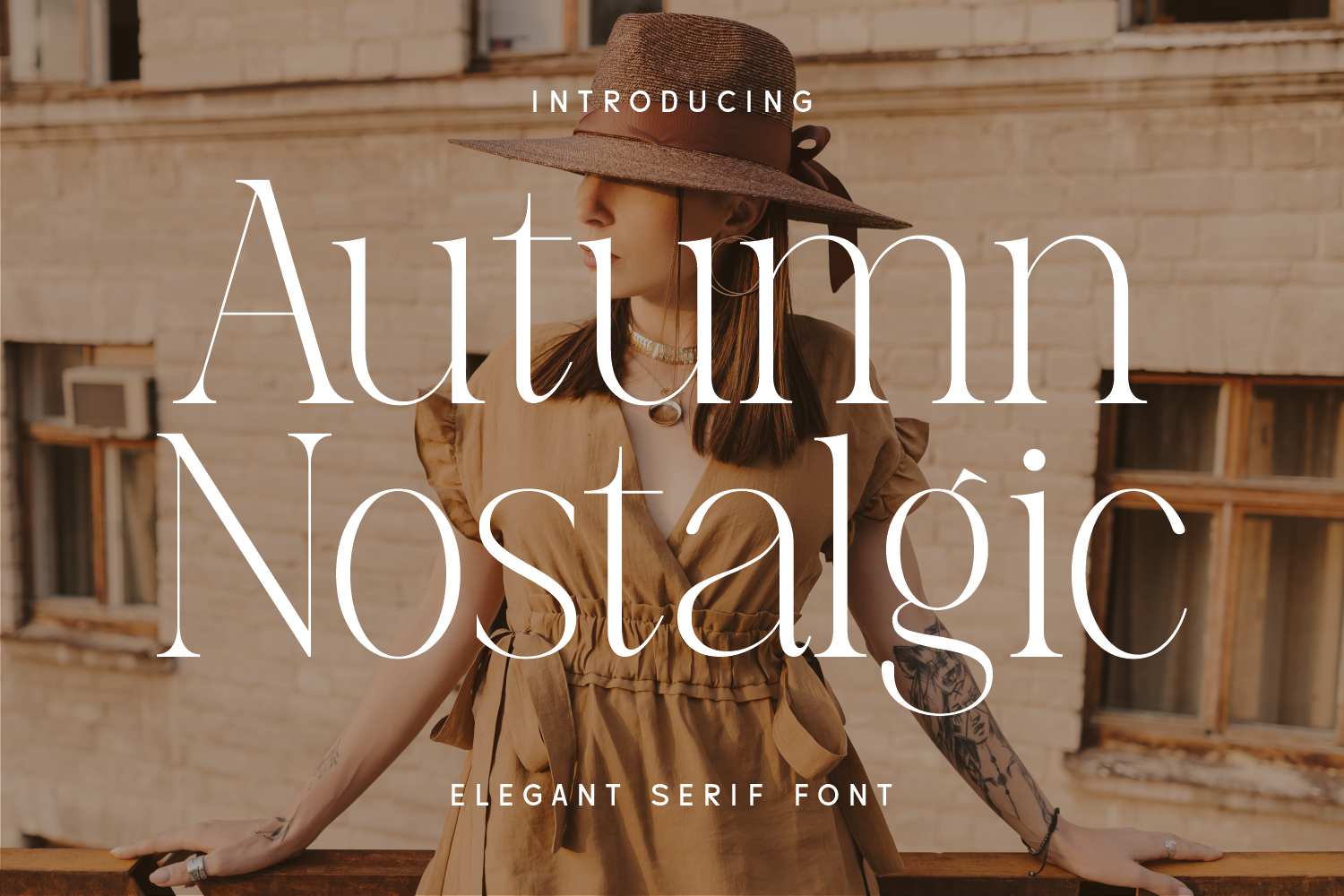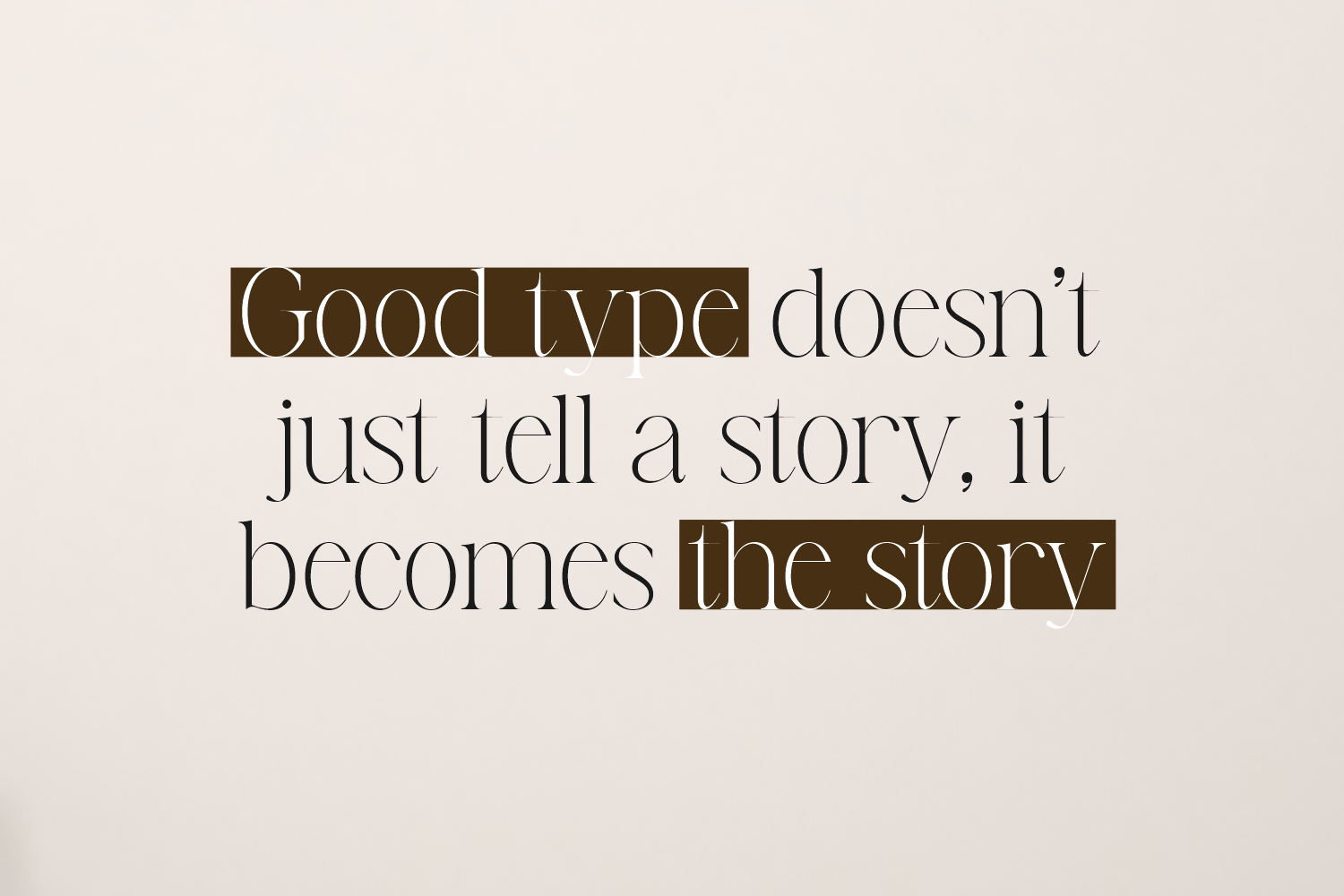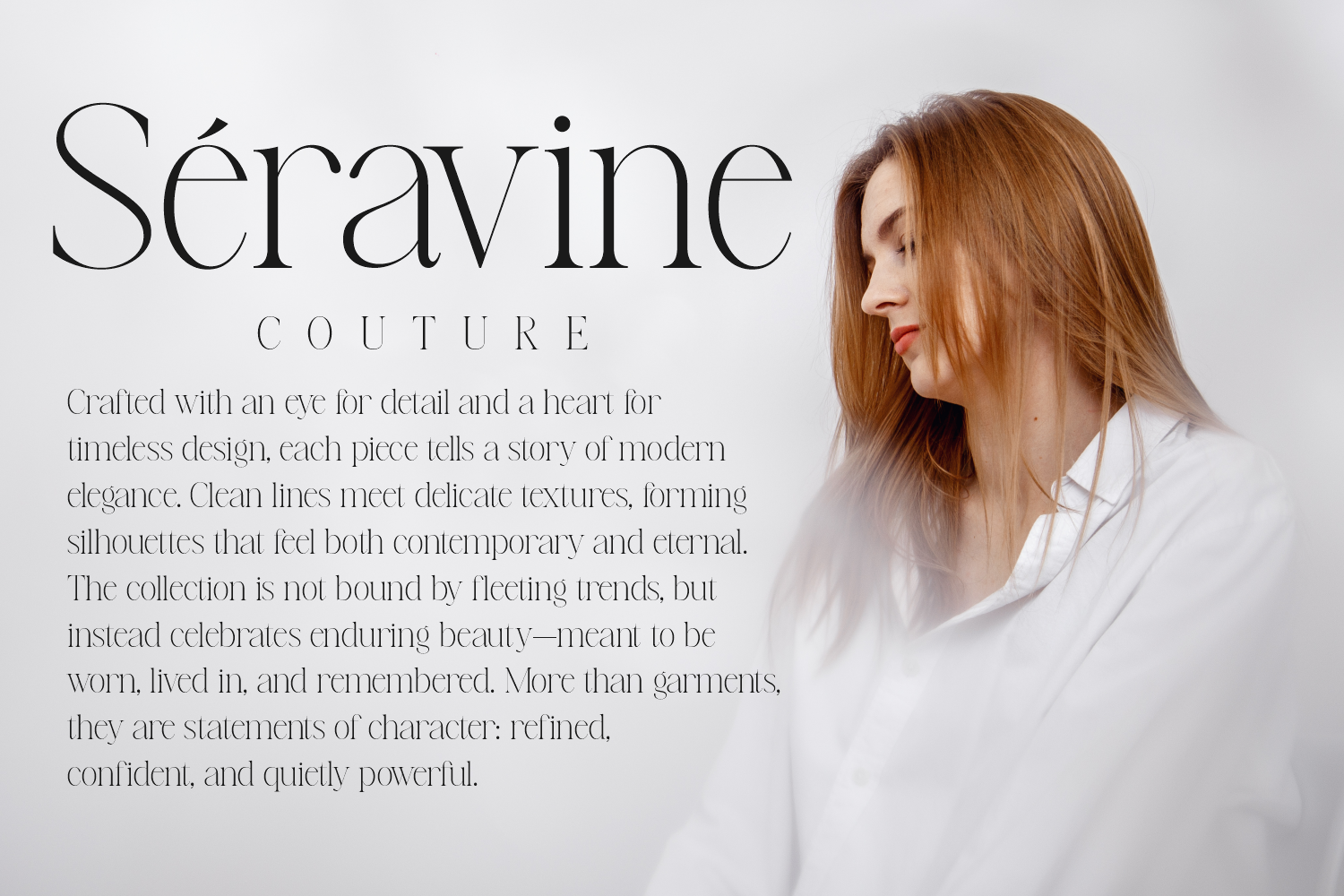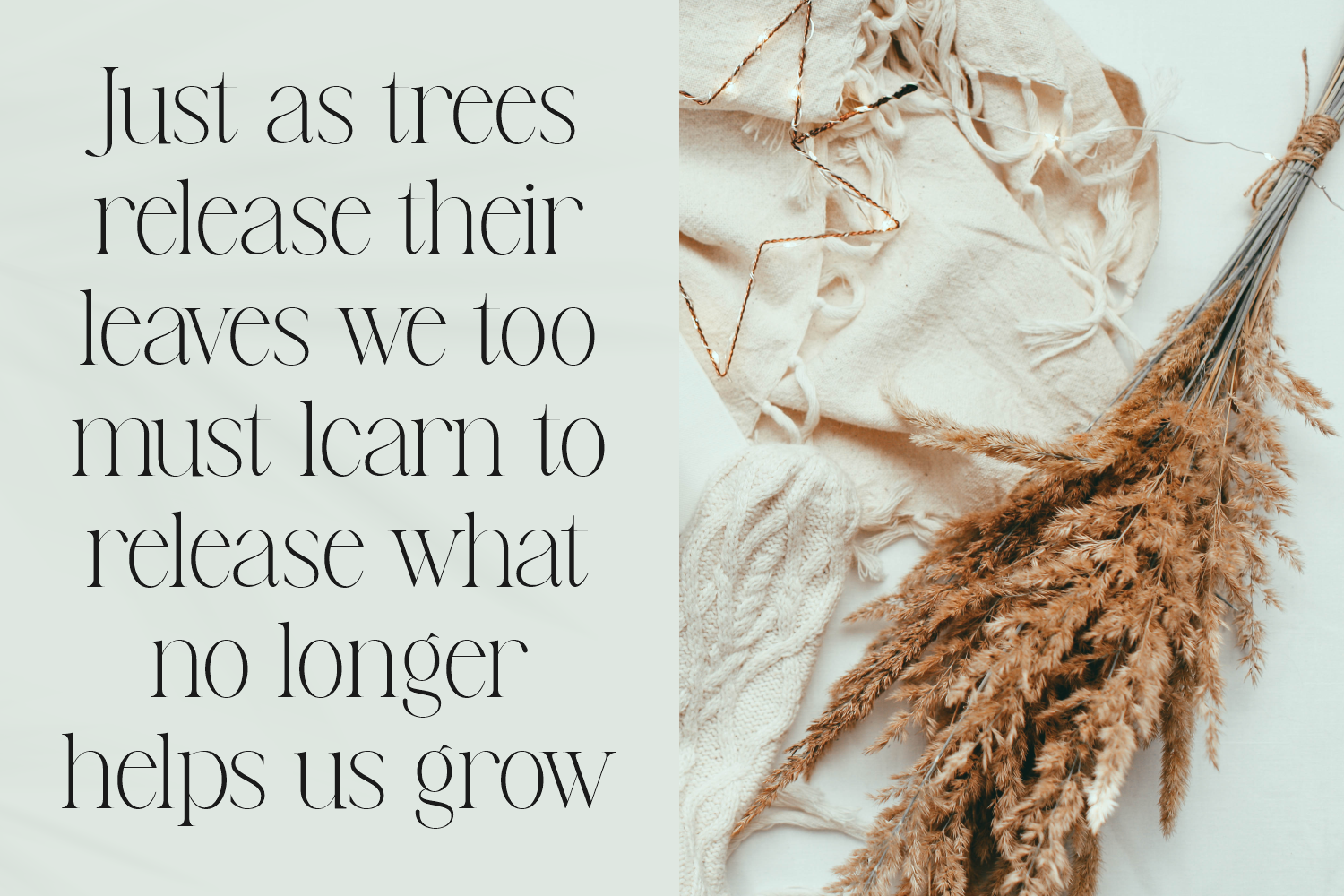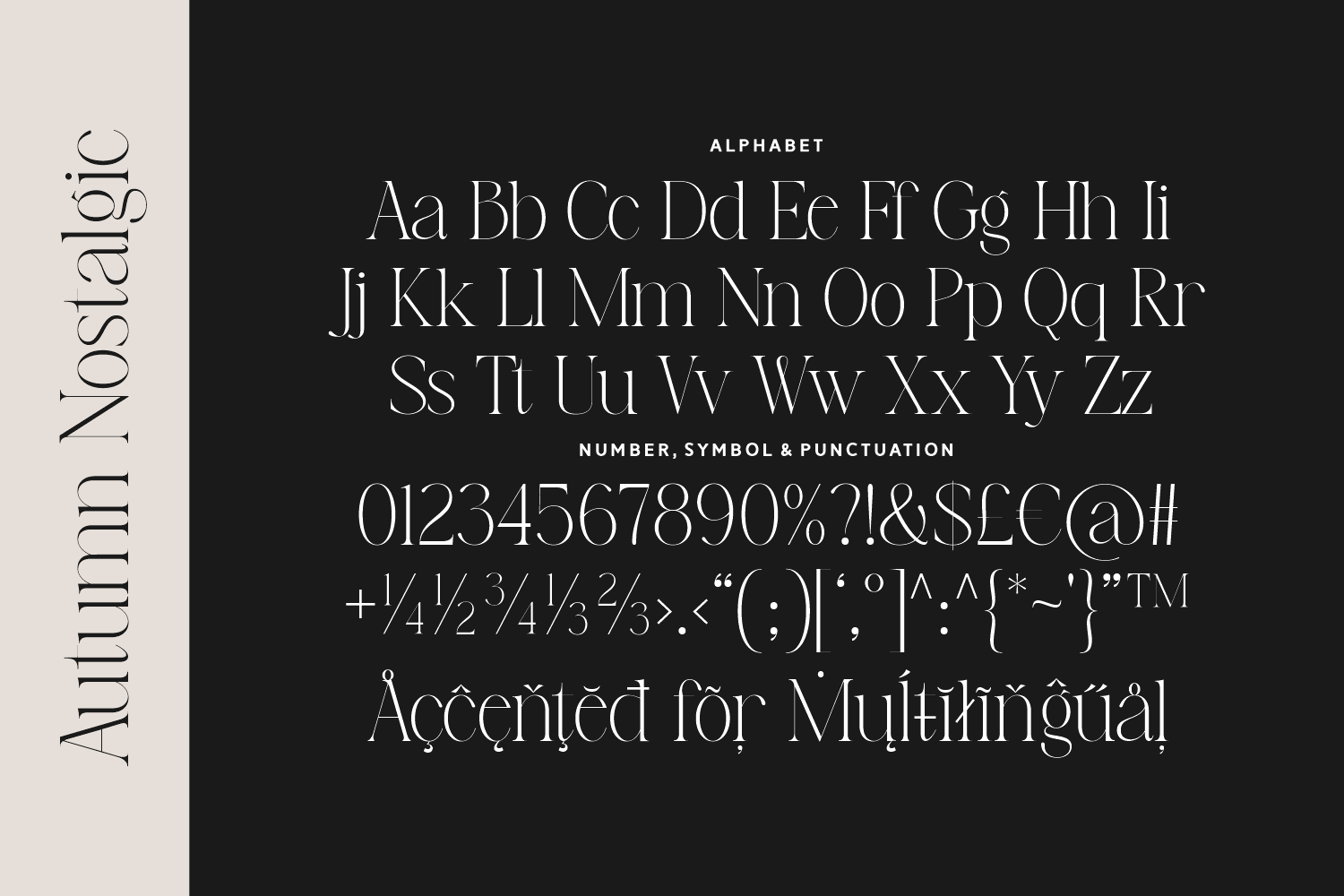
Autumn Nostalgic is a tall, graceful serif font that captures the beauty of nostalgia and the warmth of seasonal design. With its high-contrast strokes and delicate curves, this typeface is perfect for fashion, lifestyle, and storytelling brands.
It feels effortlessly romantic and editorial—ideal for headlines that want to evoke elegance with a hint of wistfulness. Bring timeless beauty to your design with a touch of vintage charm.